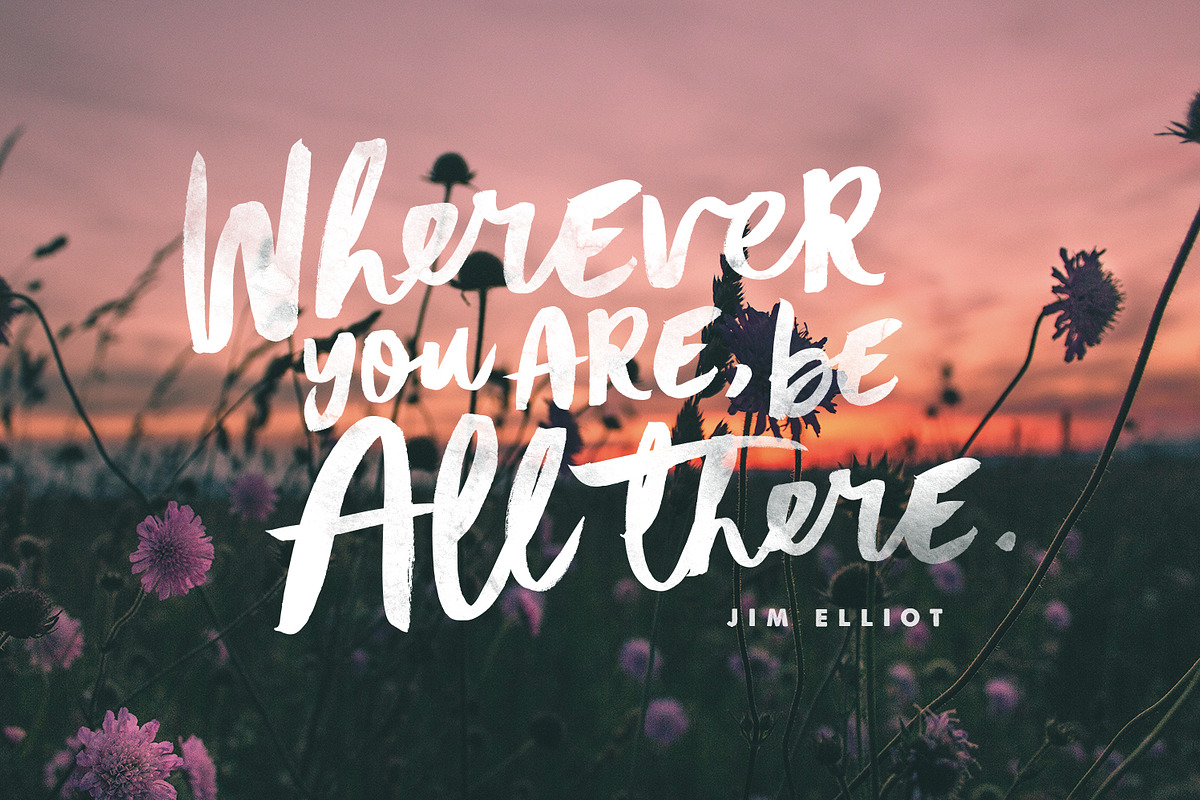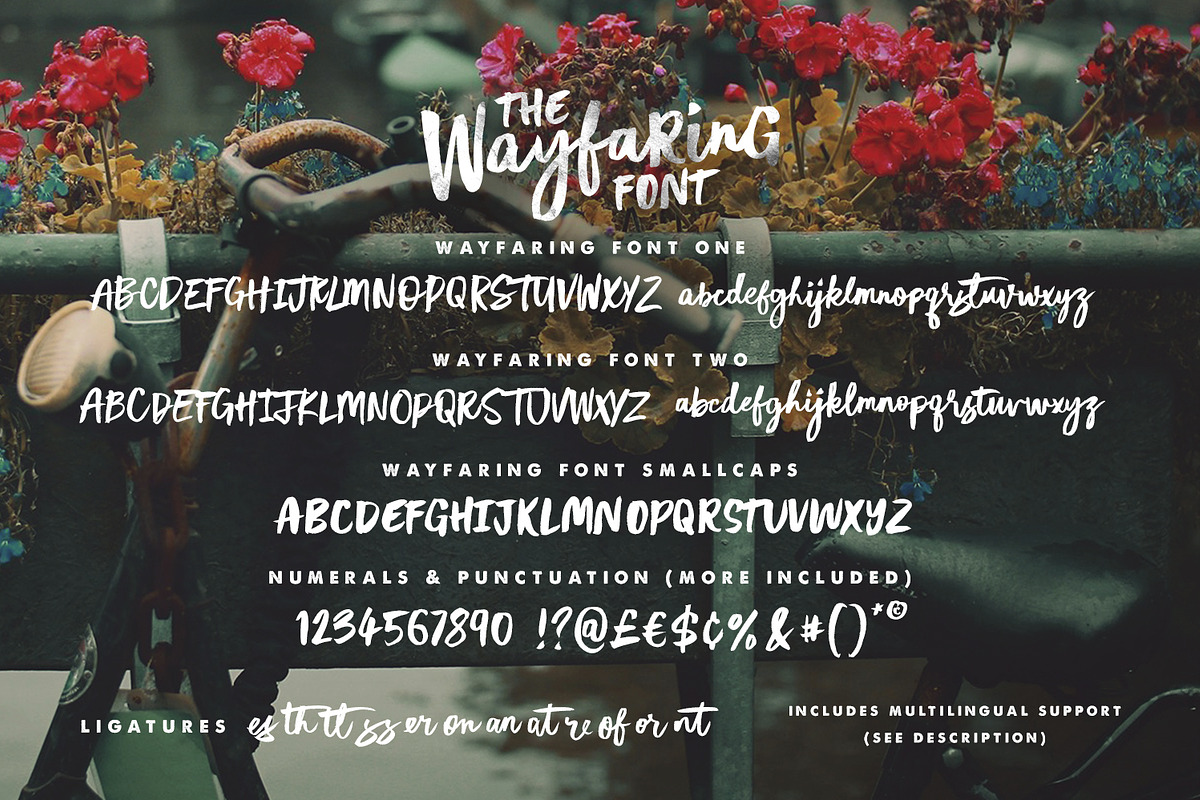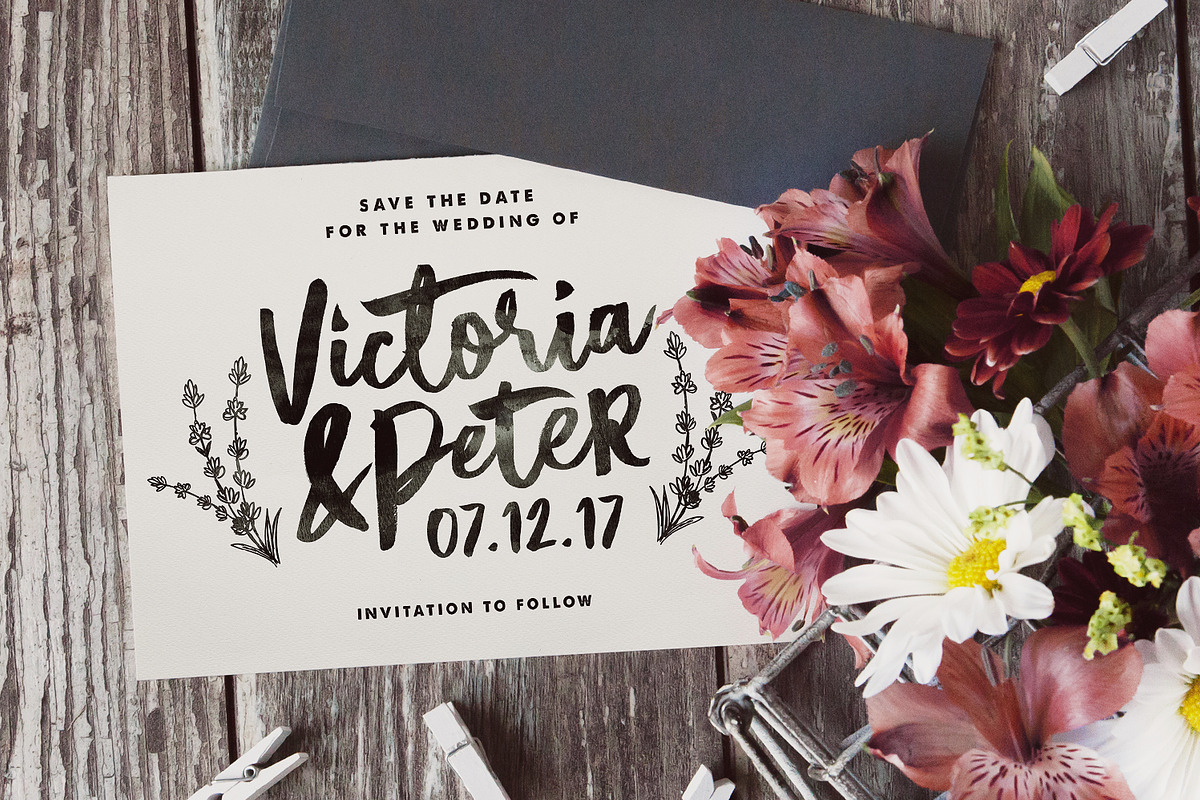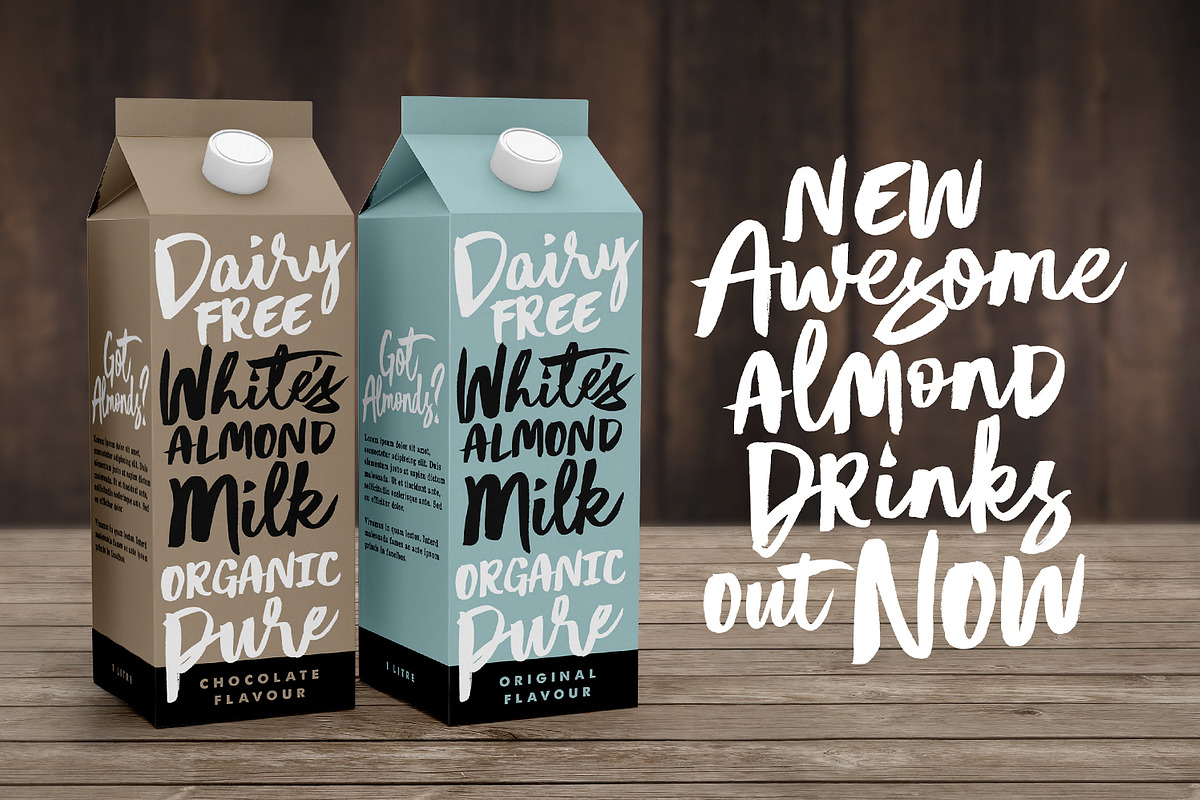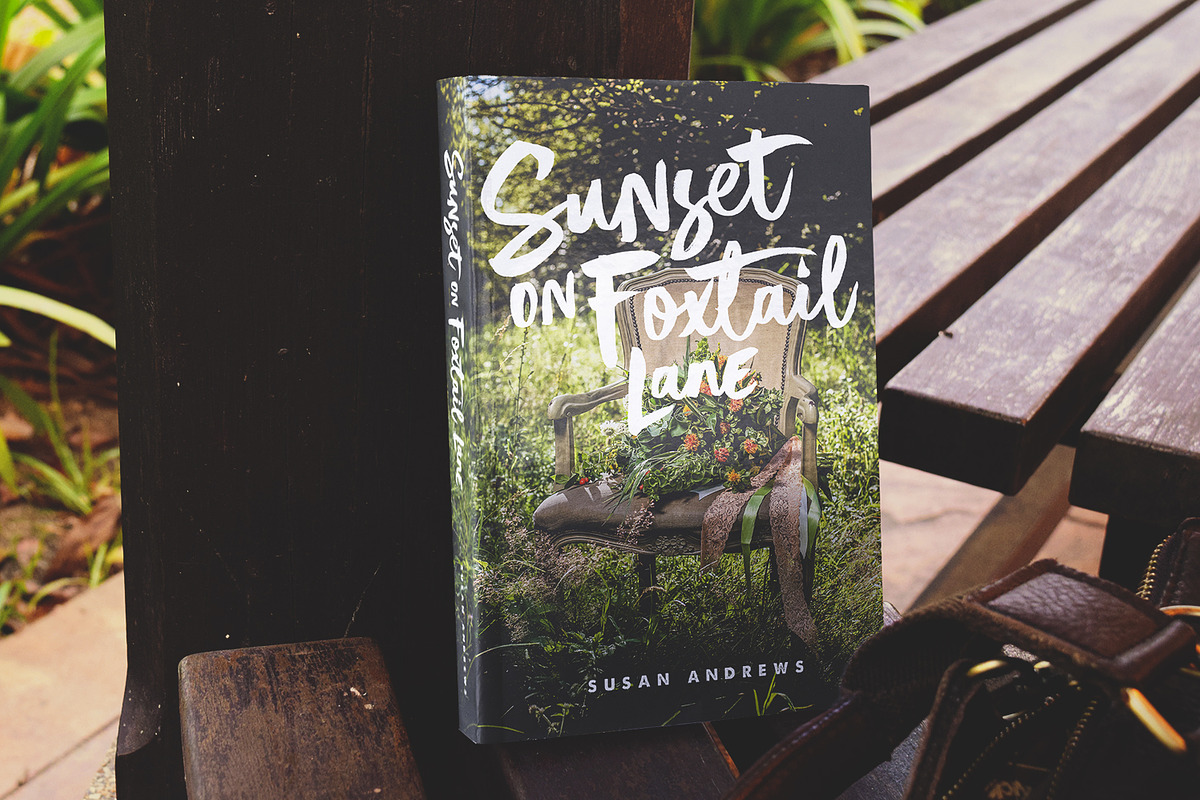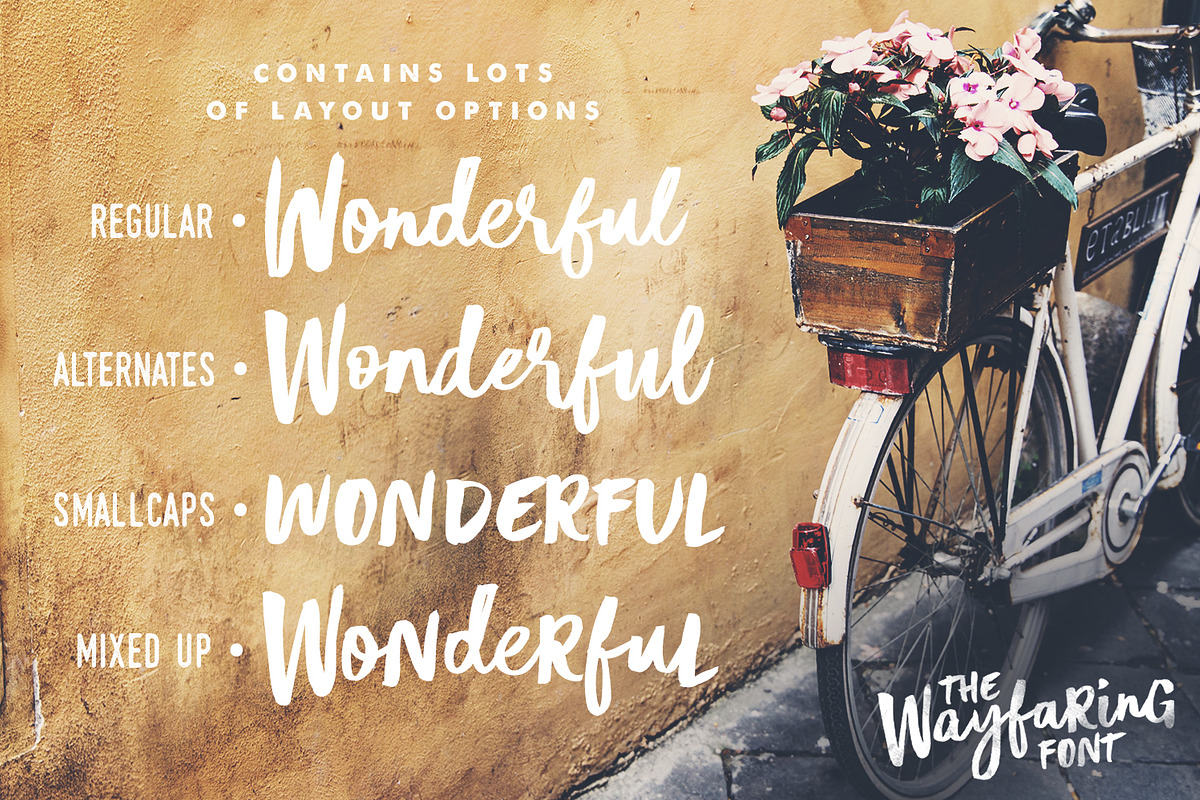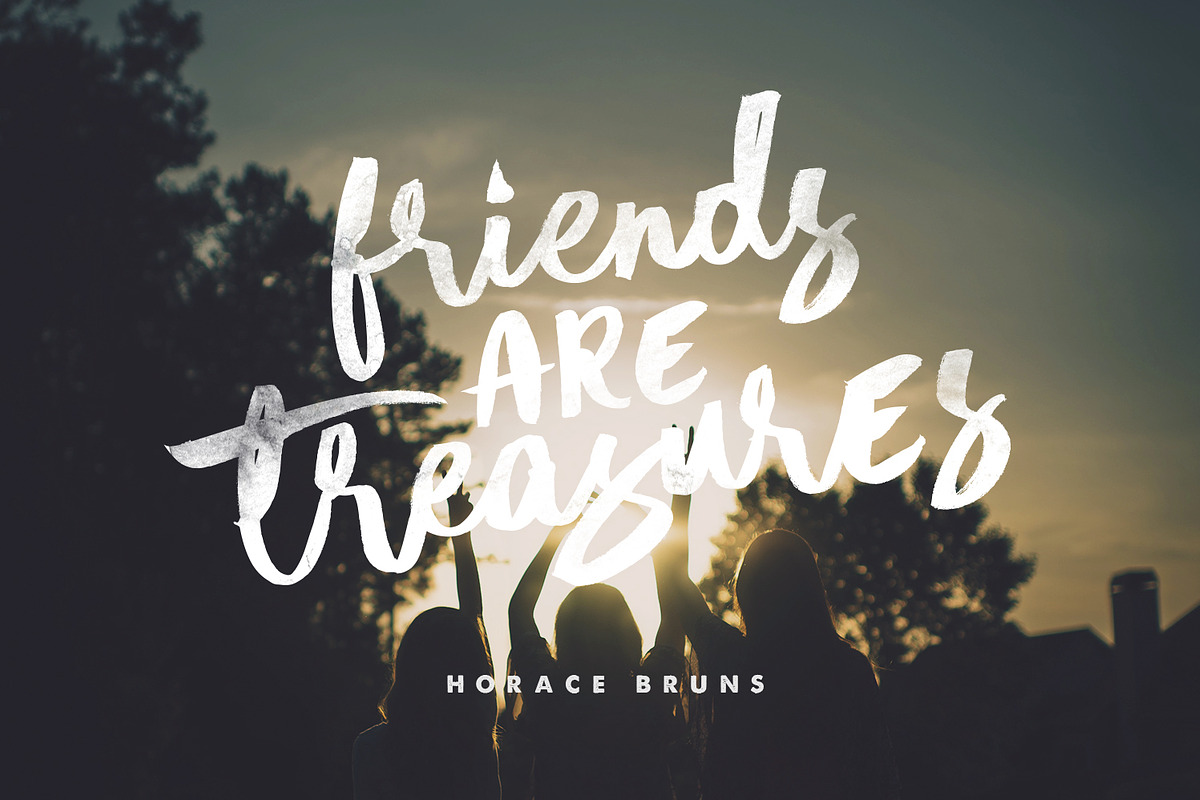
The Wayfaring Font Duo
Hey guys, I'm really excited to introduce The Wayfaring Font Duo! A hand-painted set of fonts designed to add a rustic and whimsical charm to your design projects. It's rough around the edges and not without imperfections - but aren't we all? With distinctive bold & playful brush strokes, The Wayfaring Font Duo is ideal for your logo designs, product packaging, wedding designs, book covers, social media posts, merchandise & more.
The awesome thing about this typeface duo is that it's so easy to mix up the various font styles and create totally unique, hand-made looking words each time. Not only are there 2 sets of upper & lowercase characters, there is also a unique 'all-caps' version - which not only looks great as a supporting font, but can also be combined with the regular Wayfaring font to give you even more layout options. I'm serious! Just throw a small-caps character in the middle of a word, it's really fun to play around with.
1. Wayfaring Font One • A hand-painted brush font containing upper & lowercase characters, numerals and a large range of punctuation.
2. Wayfaring Font Two • This is a second version of The Wayfaring Font, with a completely new set of upper & lowercase characters. If you wanted to avoid letters looking the same each time to recreate a custom-made style, or try a different word shape, simply switch to this font for an additional layout option.
3. Wayfaring Font Smallcaps • This is a set of uppercase only characters, designed to be used as a supporting font to One & Two, but can also replace any One & Two character, giving you additional customisability.
Ligatures are also available for several lowercase characters (double-letters which flow more naturally). These are only accessible via software with opentype capability or a glyphs panel, e.g. Photoshop/Illustrator.